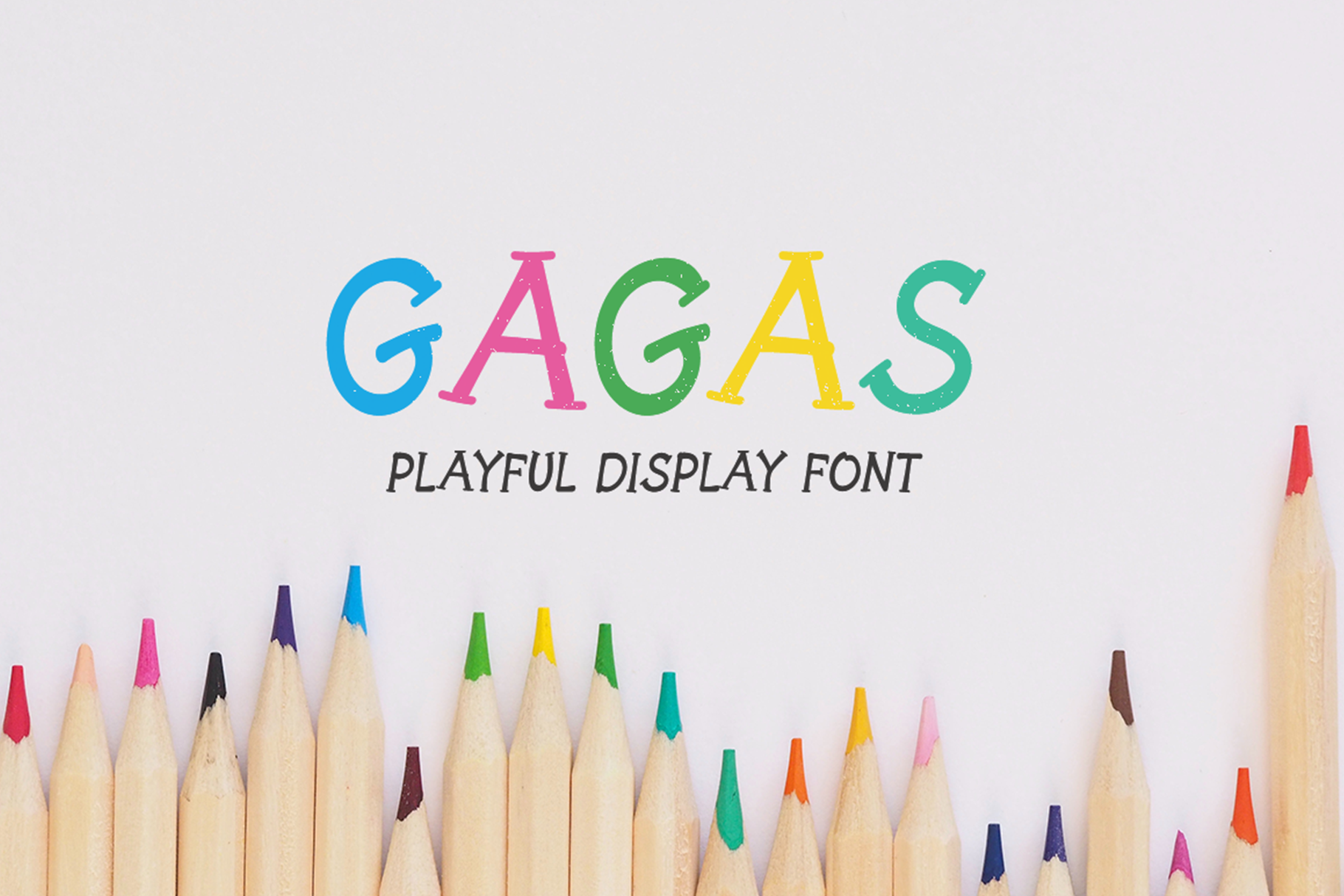
Gagas - Playful Display Font
Introducing Gagas, a modern, playful, and fun display font. Its unique and happy feel. So perfect for you who needs a typeface for logo designs, magazine, social media, brochure, and many more.